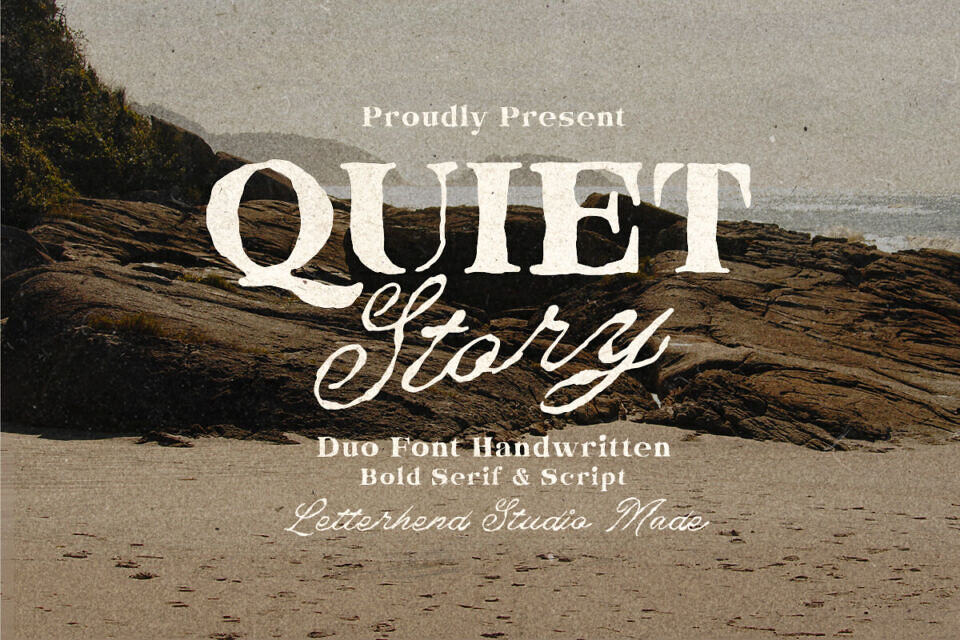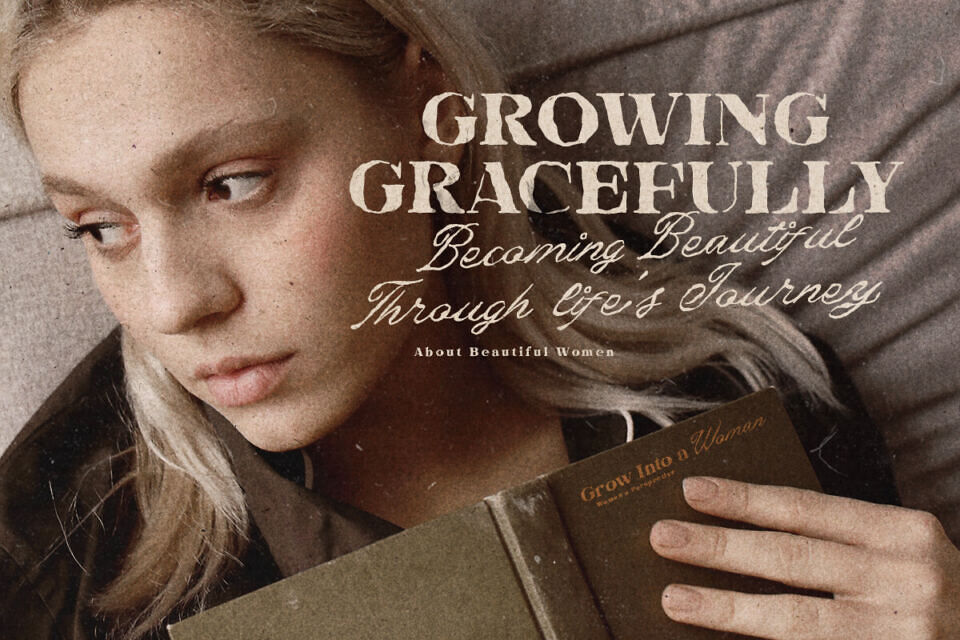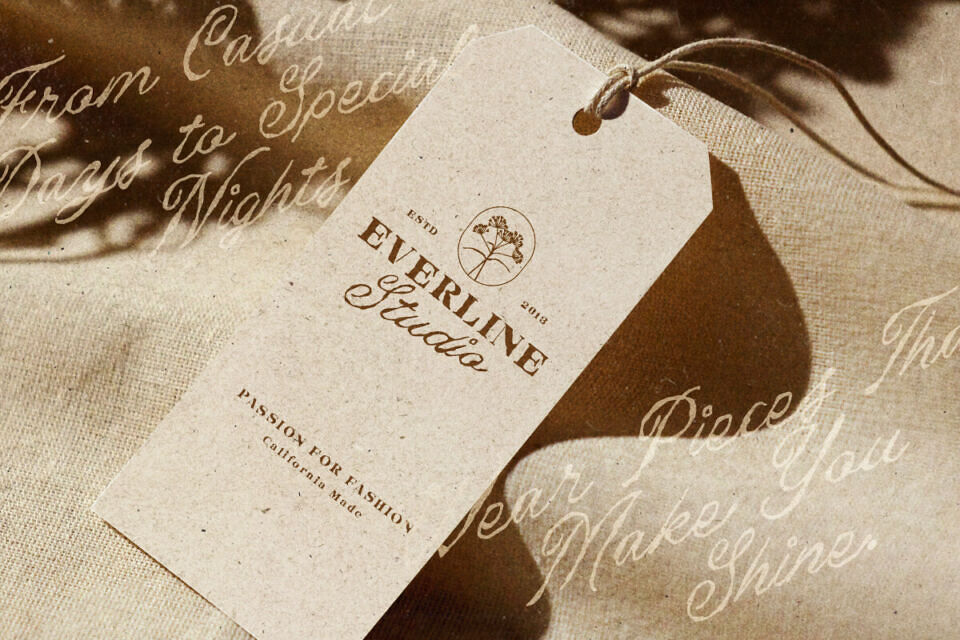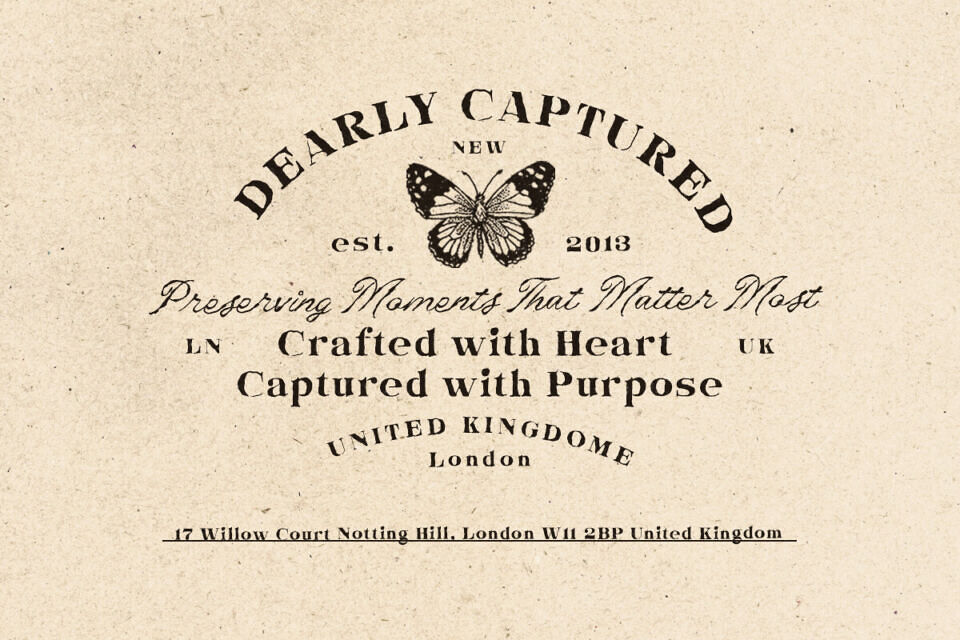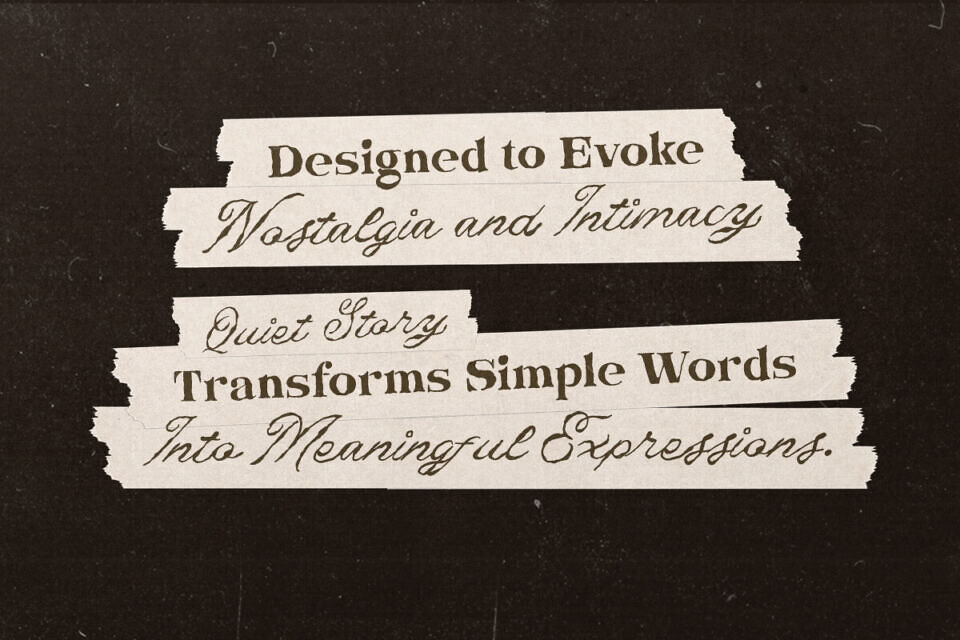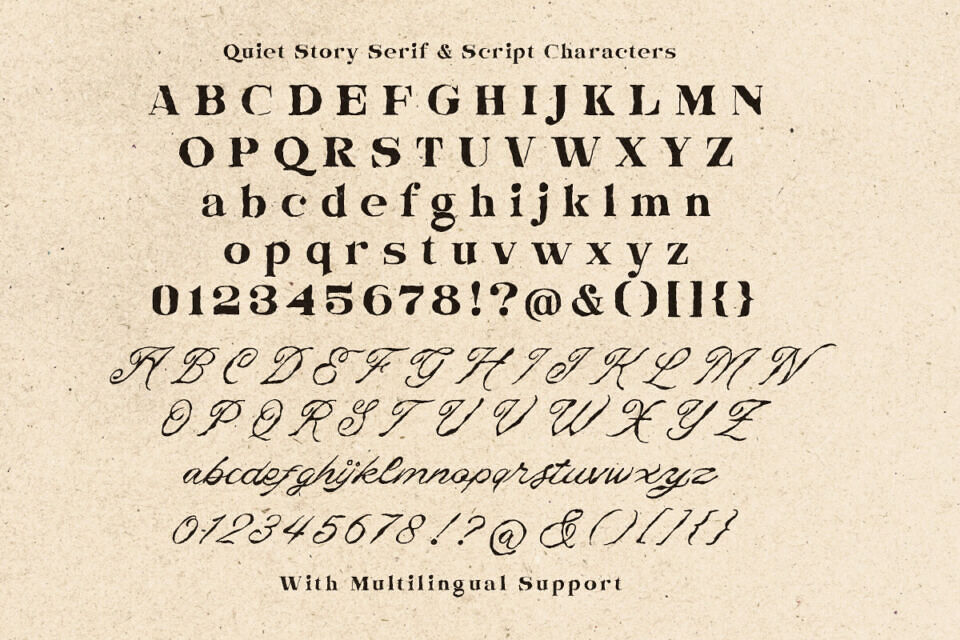
Quiet Story Font Duo
Quiet Story captures the beauty of handwritten memories and timeless printed pages in a thoughtfully paired serif and script duo. Together they create compositions that feel nostalgic yet refined, making every headline, quote, or brand identity read like a cherished story passed from one generation to the next.